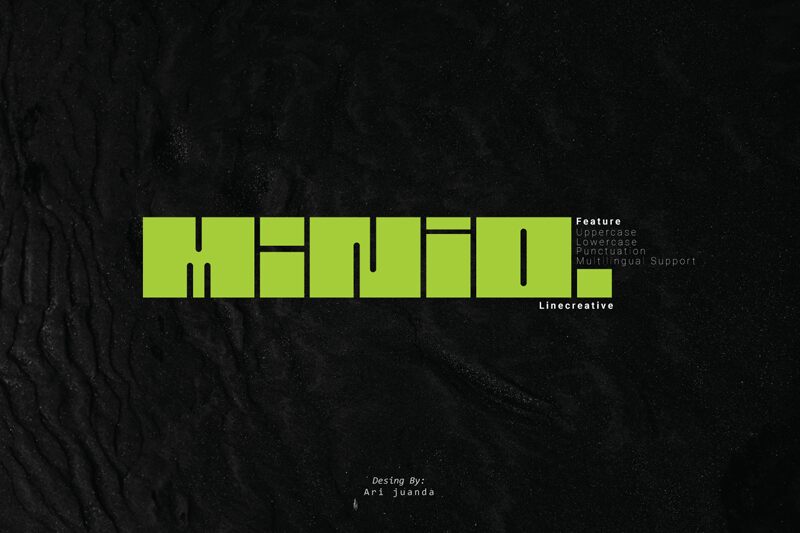
Minio Regular
The Minio font, created by Linecreative, is an extraordinary display typeface that embodies a captivating blend of technological finesse and boldness. With its extra-bold weight and extra-expanded width, this font is perfect for projects that demand attention and a futuristic vibe. Bring your technology-based designs to life with Minio's sleek and modern aesthetic, making it ideal for website headers, digital interfaces, sci-fi book covers, or even gaming logos. Let Minio's unique charm elevate your creative endeavors to new heights while captivating audiences with its cutting-edge appeal.